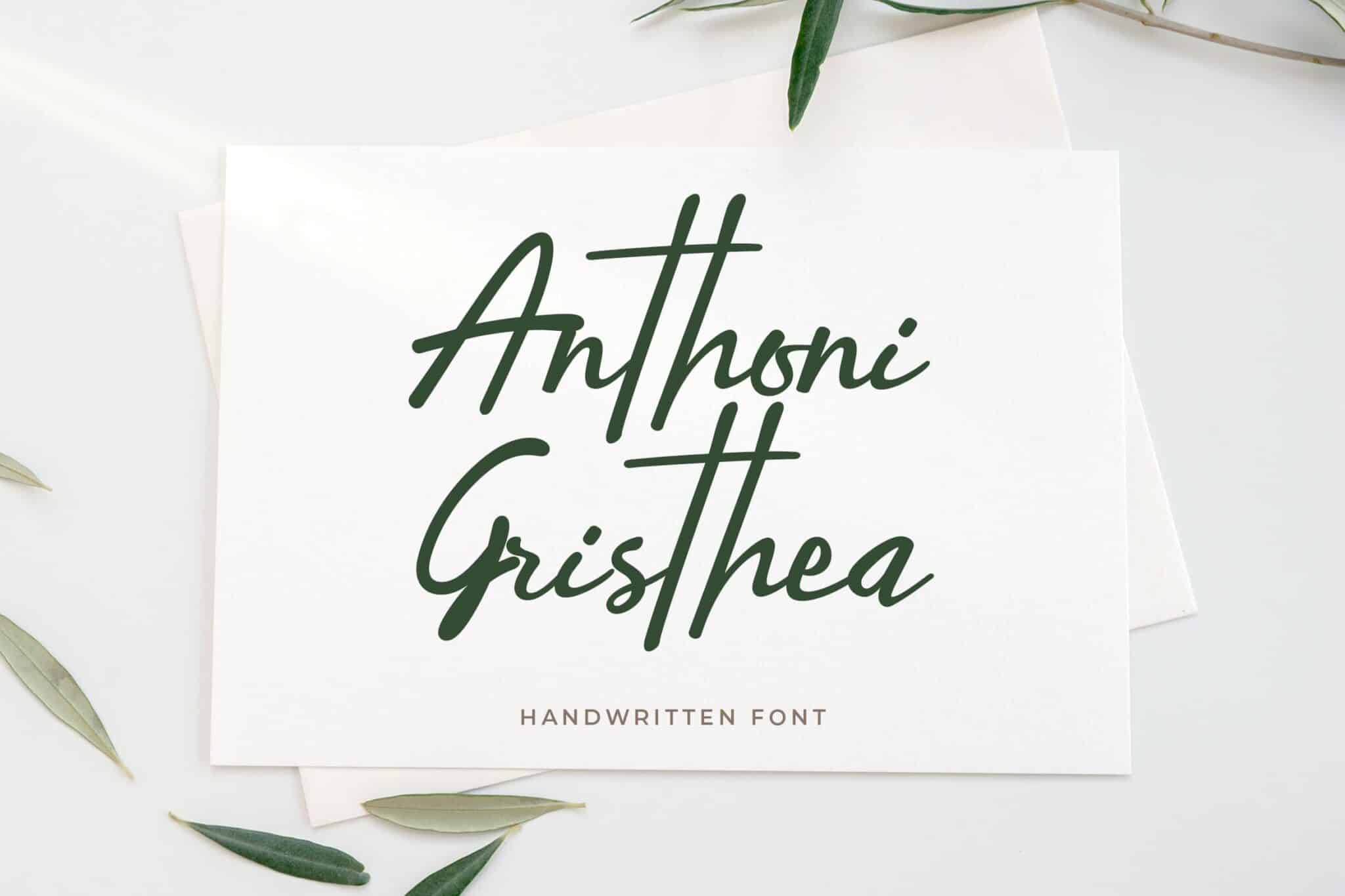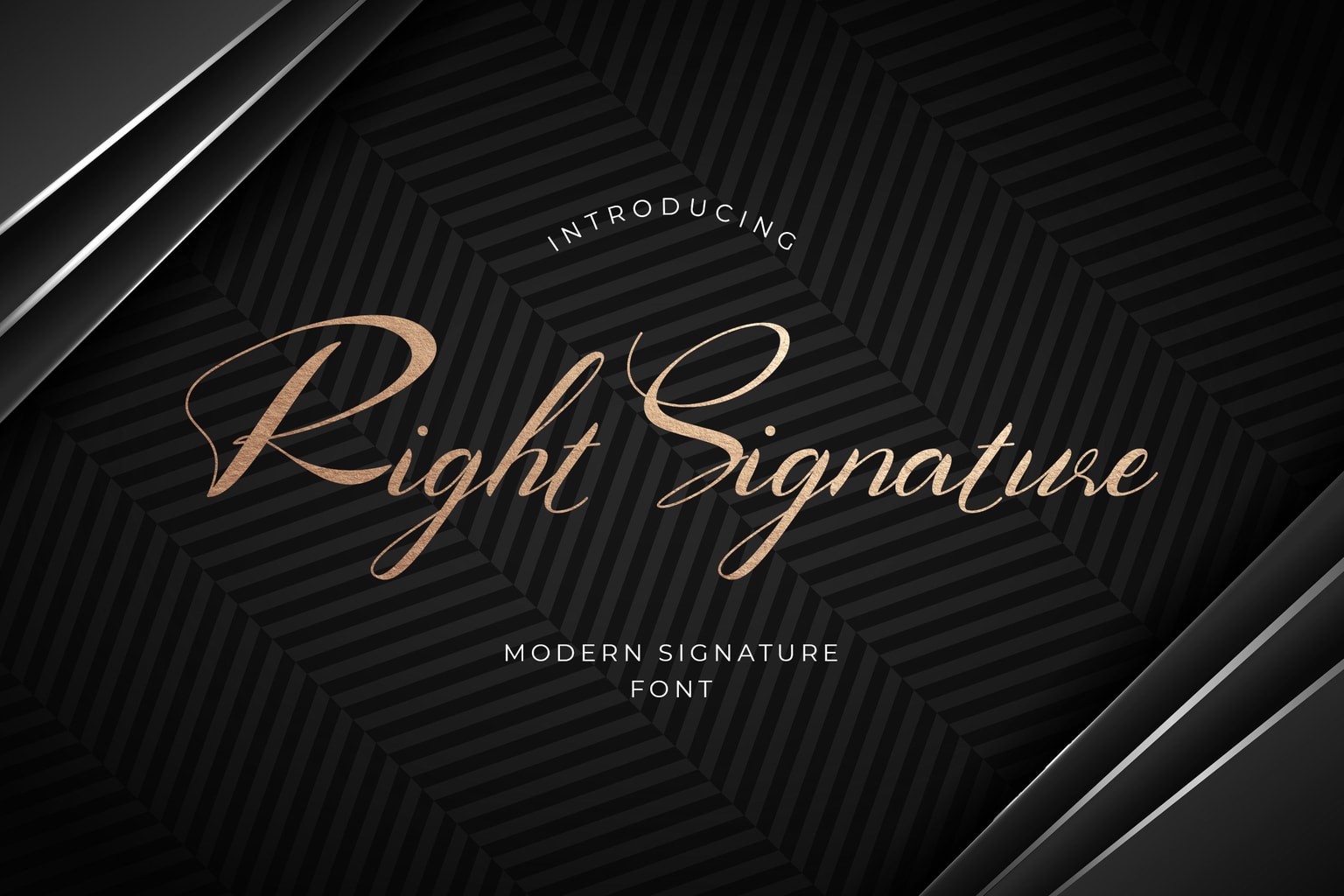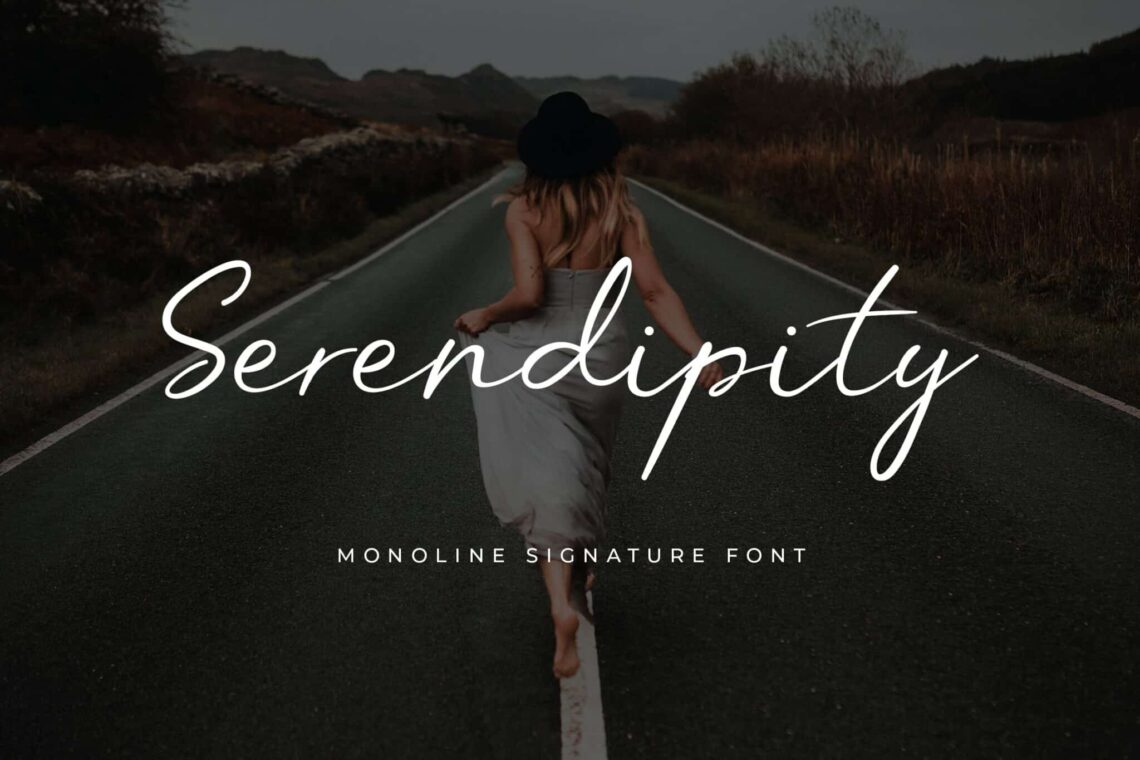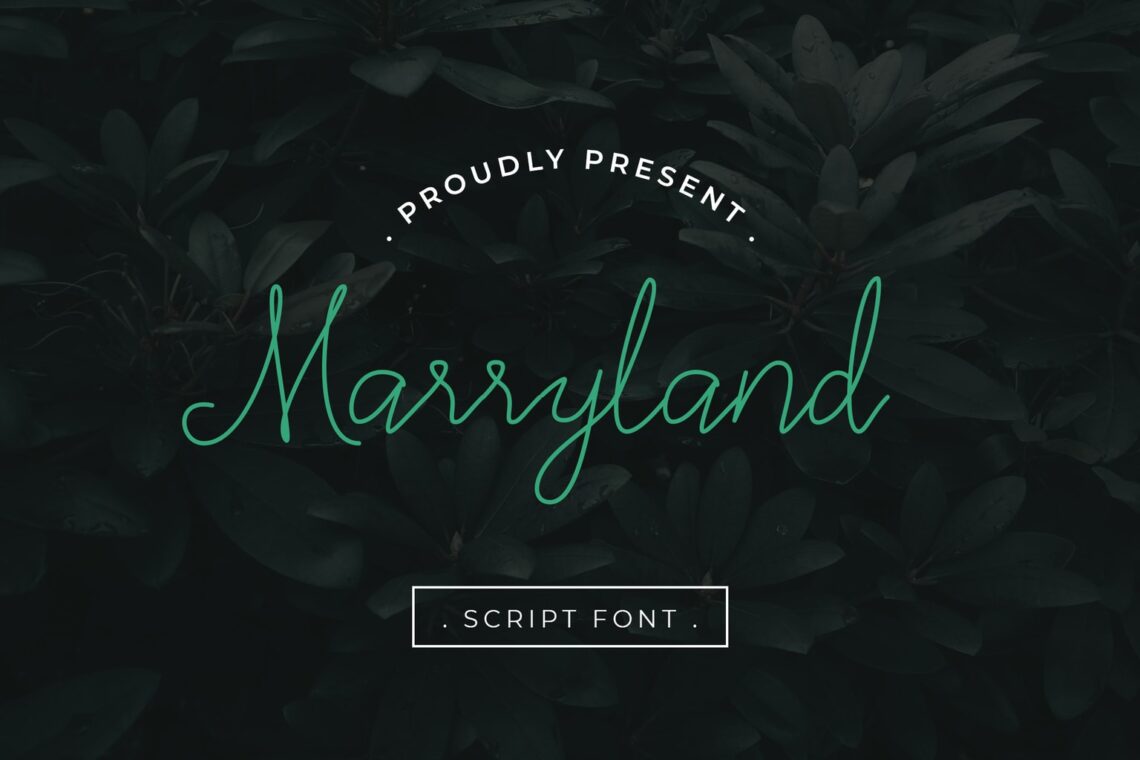
10+ Signature Fonts for Logo and Branding
Signature fonts (email signature fonts, best signature fonts in word) are becoming more popular because they add a personal touch to the brand experience as a whole. Because these looks help people feel emotionally connected to products and services, it’s not surprising that business leaders and marketing experts are putting a lot of emphasis on using signature fonts (signature type fonts) in their logos and other advertising materials.
Take, for example, Barbie and Disney. The signature fonts for each brand make it easy to remember who they are and what they stand for. Looking at these fonts, you can tell who they belong to and what they stand for. We’ve got you covered if you’re looking for the best signature fonts online.
What is Signature Fonts?
A typeface created to seem like the author’s handwriting is known as a signature font. Signature fonts are most frequently used for personal branding, since they may assist in the development of an identity that is singular and easy to recall. It may be used for stationery, logos, other marketing materials, and websites, or it can just be utilized to give a bit of personality to your papers.
Signature Fonts for Logo and Branding
1. Right Signature Font
Right Signature Font
One of our most popular finds is the first on the list. Right Signature Font is a signature fonts that looks like it was written naturally by hand. This font is full of washes, ligatures, and different styles that make it versatile. You can use it on book covers, poster headlines, baby brands, or anything else.
2. Spice Wallet Script
Spice Wallet Handwritten Style
The Signature Font Spice Wallet, a typeface by UICreative, has been aptly dubbed a luxury font due to its appeal of being elegant, graceful, and cursive. This candidate is equipped with ligatures and swashes in addition to conventional characters and choices for writing in many languages. Because it is wonderfully legible, you need not be concerned about disturbing your audience.
3. Srikaya Handwritten Font
Sirikaya Handwritten Font
This stunning font features handwritten signature fonts in a beautiful handwriting style. This typeface, dubbed a chic tribute to traditional calligraphy, is charming and delightfully personal. Also, this font will be successful in anything from postcards to art items for social networking platforms.
4. Marryland Handwritten Script Monoline
Marryland Handwritten Script Monoline
The handwritten signature script known as Marryland has a flow that comes naturally. This typeface, considered one of the more hygienic choices on the list, is ideal for anybody who wants to maximize a calligraphy look that is at once delicate and professional.
5. Serendipity Handwritten Font
Serendipity Handwritten Font
Our Serendipity is one of the items on the list that gives the impression of being more personal than the others. It does this by using an aesthetic that is delicately inspired by calligraphy. This typeface is sure to please, making it an excellent choice for branding projects, Pinterest quote graphics, and business card layouts. It also includes a large number of glyphs, alternatives, and ligatures for you to use!
6. Veronica Hamish Signature Handwritten Font
Veronica Hamish Signature Handwritten Font
Our Veronica Hamish is one of the most refined options available on the list, and it stands out thanks to its accentuated curves and narrow lines. This set includes not only the letters of the alphabet but also the numbers and symbols, and it is compatible with the industry’s most popular editing software packages. Choose this if the aesthetic you’re going for is typically associated with women.
7. Light Paprica Calligraphy
Light Paprica Calligraphy - best signature fonts in word
Light Paprica Calligraphy
This is yet another intimate typeface that competes in the signature fonts market. The Light Paprica typeface has an air of sophistication and brings to mind wedding announcements thanks to its contemporary design, which includes lovely ligatures and alternatives. This font is a versatile typeface that any creative person would love using everywhere, and it is appropriate for a variety of branding initiatives as well as publication projects.
8. Drepton Olina Handwritten Font
Drepton Olina Handwritten Font
This typeface combines a professional appearance with a cursive style and is an option worth considering if you are seeking such a font. This candidate is readable, thick, and has a cohesive appeal, making it excellent for business design projects and formal invites. It is one of the trademark fonts more obviously inspired by modern technology.
9. Anthoni Gristhea Handwritten Script
Anthoni Gristhea Handwritten Script - email signature fonts